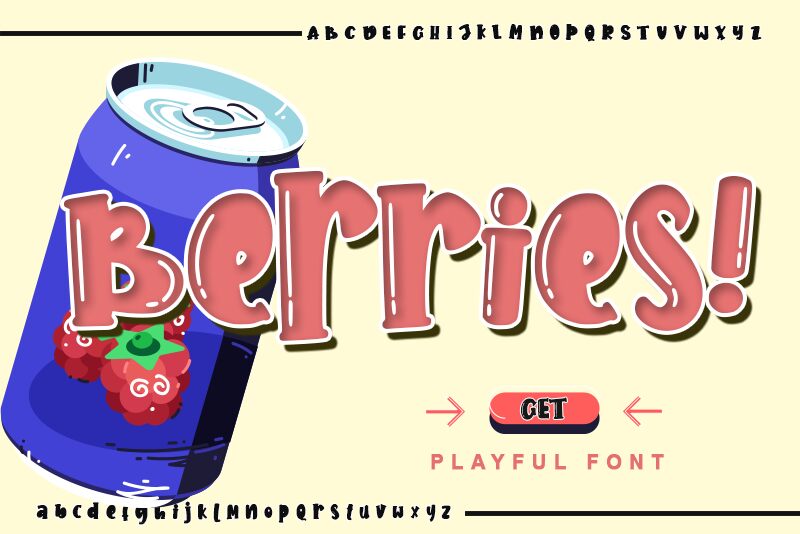
Dive into the delightful world of Berries, a display font crafted to bring an extra dose of joy to your creative endeavors. Created by Letterara, this extra-bold, cartoon-style serif is not just a font—it's an instant mood lifter for any viewer. With its endearing curves and bubbly shape, Berries exudes charm that can turn any project into a standout piece.
Perfect for branding, children's books, or whimsical packaging designs, this font shines in applications where personality is key. Let Berries be the voice of fun in your next project and watch as it captures hearts with its irresistible playfulness. Embrace the sweetness and versatility of Berries for designs that demand to be noticed—and loved!